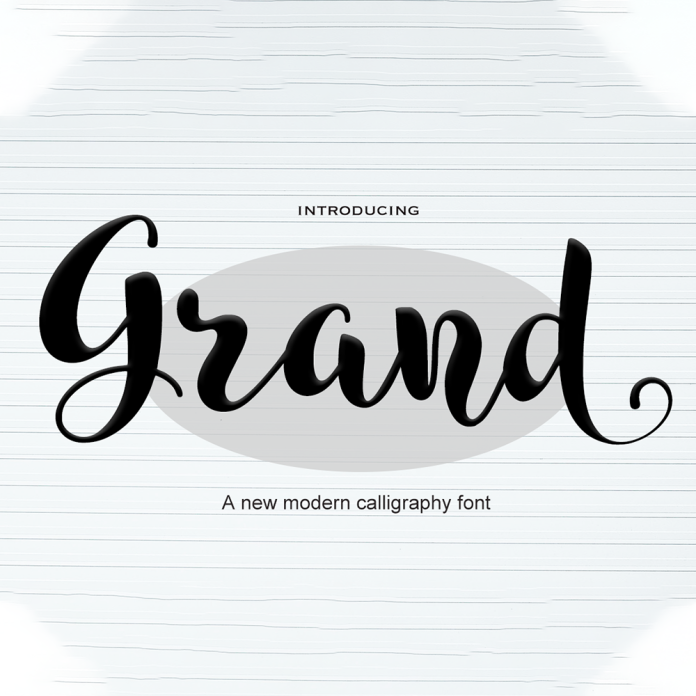
Grand font is a striking brush script font that exudes elegance and sophistication. With its bold strokes and fluid lines, this font is perfect for creating eye-catching designs for luxury brands, invitations, and packaging. Its unique style adds a touch of glamour to any project.